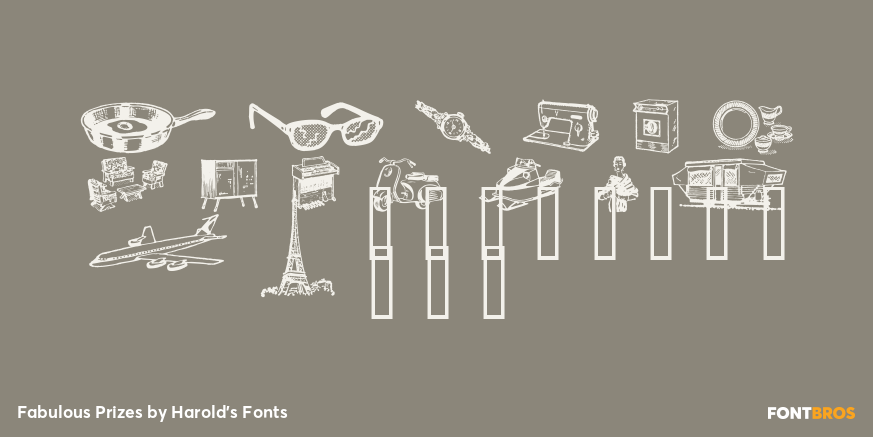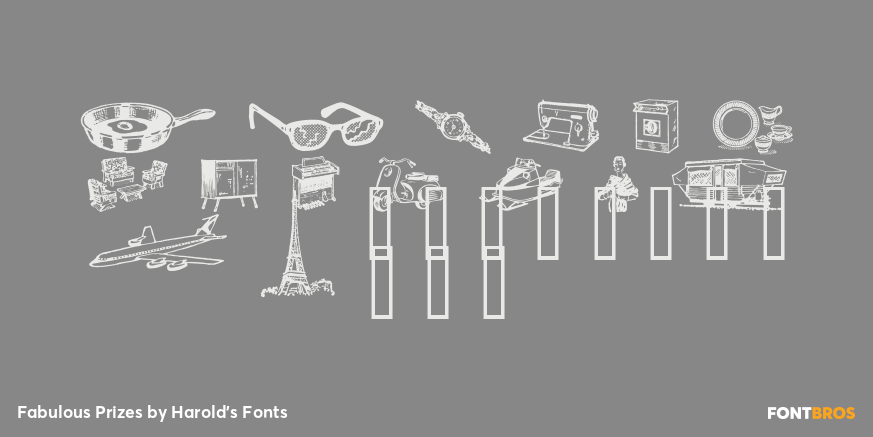
Fabulous Prizes
Font Family by Harold's Fonts
FABULOUS PRIZES was inspired by the parts of a long lost game. 15 stylish images ranging from the gag prize broken eyeglasses to the grand prize trip to Paris.